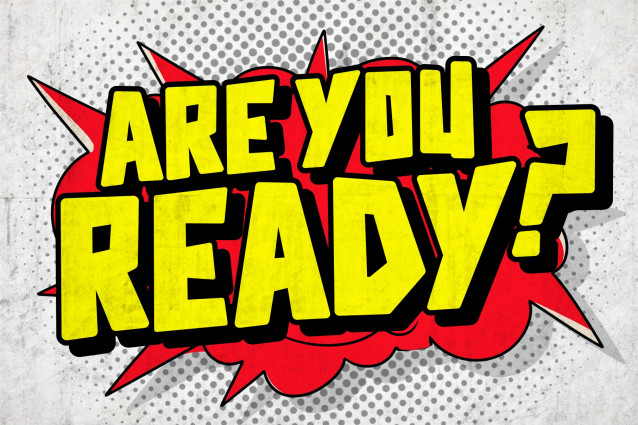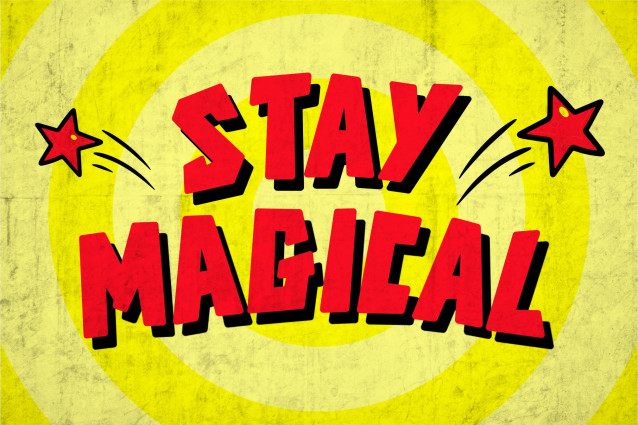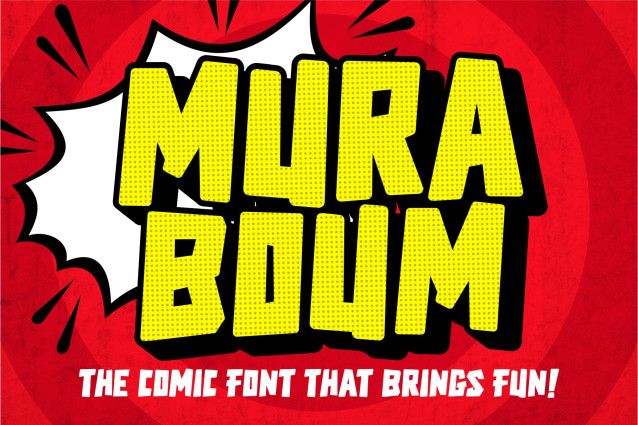
Mura Boum Font
Mura Boum is a bold comic display font bursting with energy, fun, and explosive personality! Inspired by classic pop-art comics and retro superhero vibes, this font delivers powerful lettering that instantly grabs attention. With its chunky shapes, dynamic style, and playful attitude, Mura Boum is perfect for comic titles, posters, YouTube thumbnails, children’s designs, branding, merchandise, stickers, packaging, and anything that needs a loud and exciting look.
Bring your designs to life with the explosive charm of Mura Boum — the comic font that shouts with style!